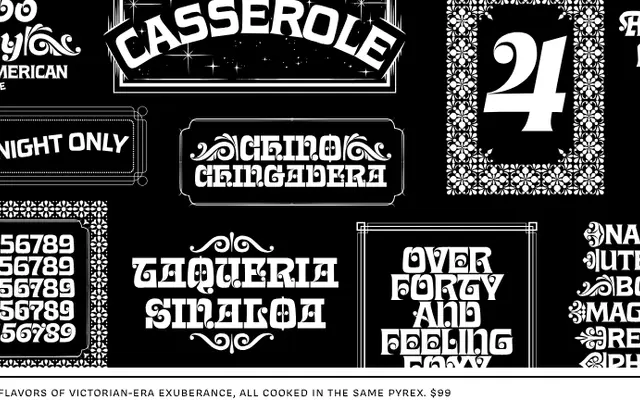
Casserole
A six-subfamily revival and expansion of Louis Minott's 1966 display face Davida, united by its signature ball terminals across Classic, Sans, Flare, Script, Blackletter and Lombardic styles.
OH no Type describe it as an exhaustive resuscitation of Davida, pushing the ball-terminal logic of the original into wildly divergent territory. Each of the six styles shares the same decorative DNA while offering a completely different register, from the stripped-back Sans to the ornate Lombardic. OpenType features include intelligent swash-crossbar removal, non-lining figures, case-sensitive punctuation, fractions and a set of border and textile ornaments.
Casserole is built on the bones of Davida, a heavily ball-terminal display face from 1966, and expands it into six stylistically distinct subfamilies including blackletter, script and Lombardic, all united by the same exuberant ball-terminal aesthetic.
Casserole ClassicCasserole SansCasserole FlareCasserole ScriptCasserole BlackletterCasserole Lombardic